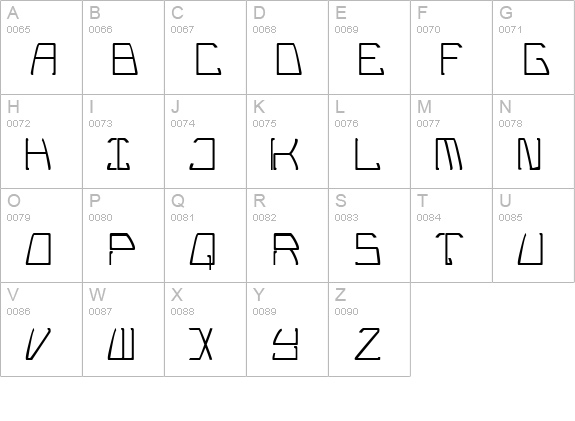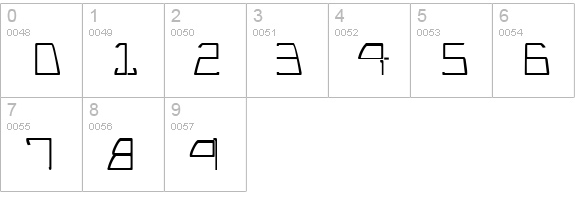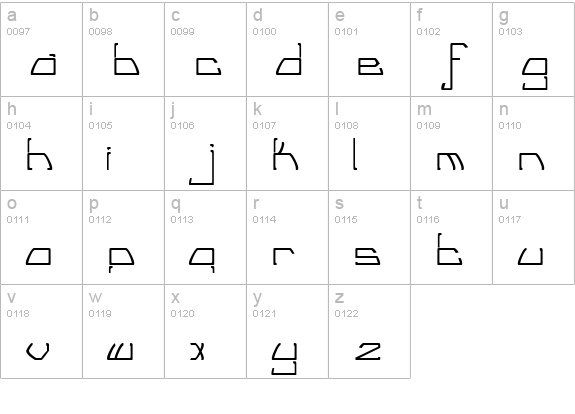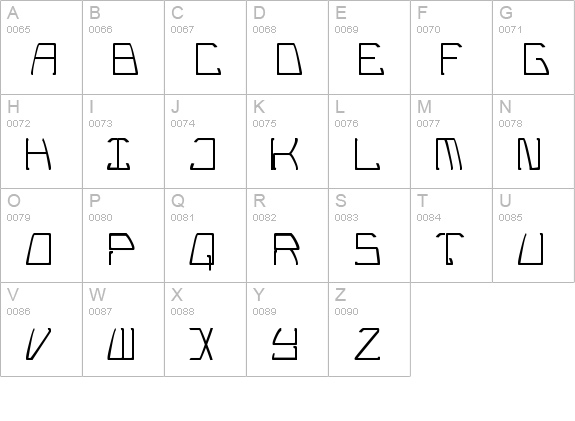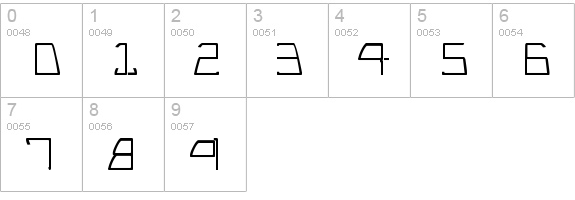
TM Tail Lights Normal Font Details
TM Tail Lights Normal is the standard, neutral variant in the TM typeface family \xE2\x80\x94 well suited to general body text, paragraphs, and standard typographic work.
TM Tail Lights Normal font is a visually appealing typeface designed to add a touch of elegance and sophistication to your designs. With its sleek lines and stylish curves, this font is perfect for creating eye-catching headlines, logos, and branding materials. The TM Tail Lights Normal font is incredibly versatile, making it suitable for a wide range of design projects, from print to digital. Whether you're designing a magazine layout, a website, or a poster, this font will effortlessly enhance the overall aesthetic of your work. What makes TM Tail Lights Normal font even more amazing is that it is available for free download at FontsMarket.com. This means that you can add this stunning font to your collection without having to spend a dime. Simply head over to FontsMarket.com and start exploring the wide range of fonts available, including TM Tail Lights Normal font. So why wait? Download TM Tail Lights Normal font today and elevate your designs to a whole new level of sophistication and style. Whether you're a professional designer or just someone who enjoys creating visually stunning designs, this font is sure to become a valuable asset in your toolkit. Don't miss out on this amazing opportunity to enhance your designs for free. Get TM Tail Lights Normal font now, exclusively at FontsMarket.com.